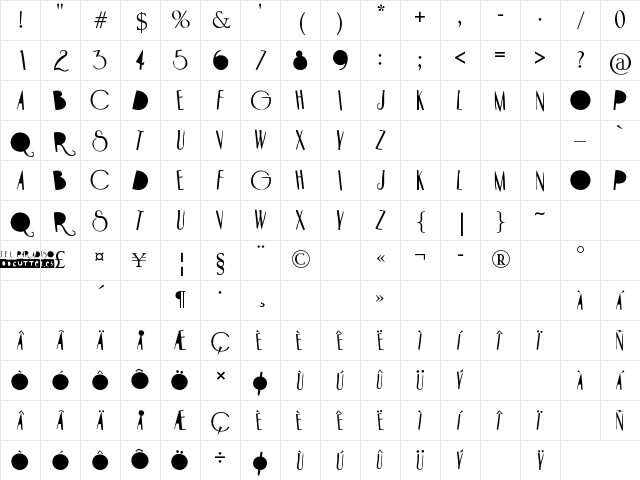
HOTEL PARADISO Regular Free Font
HOTEL PARADISO Regular
Design Context for HOTEL PARADISO
HOTEL PARADISO is a composed and adaptable typeface that performs quietly and consistently across a wide range of design contexts.